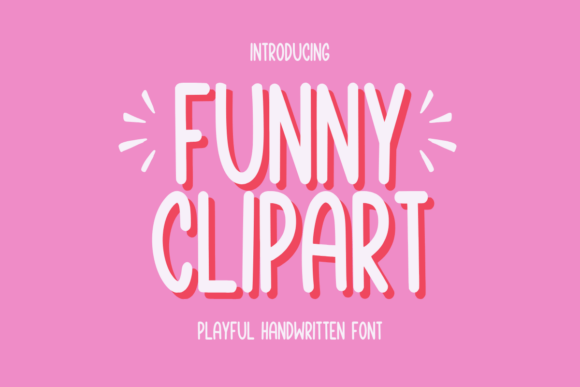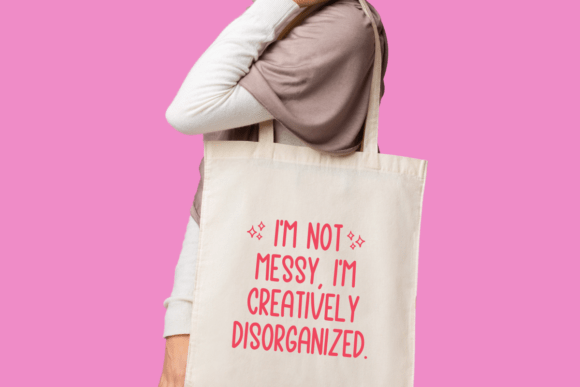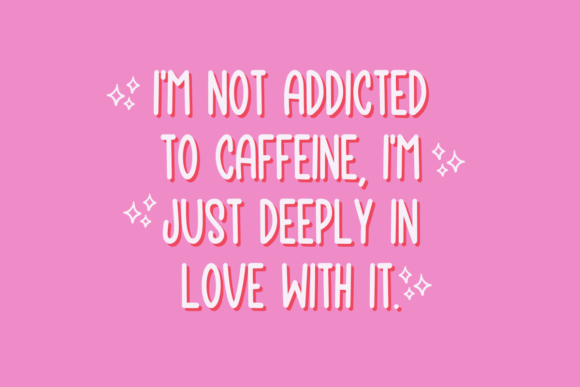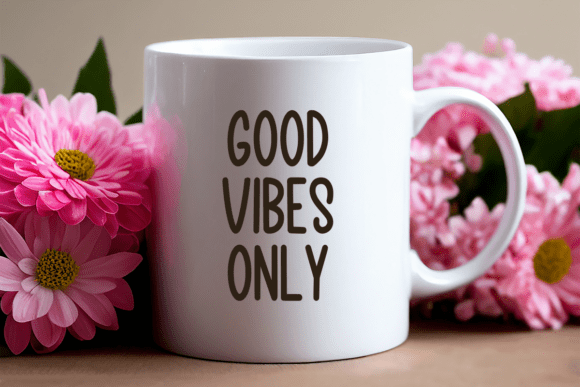
Funny Clipart Font: A Playful Handwritten Font for Cricut & DIY!
About the Funny Clipart Font
Get ready to be inspired by Funny Clipart Font, a fresh and dynamic typeface for modern creators. Funny Clipart is a fun and playful handwritten font that’s perfect for crafts, planners, KDP, stickers, greeting cards, and more. With its cute and friendly style, it works great for Cricut, sublimation, and creative DIY projects. Ideal for crafters, designers, and makers!
Its playful, hand-drawn style shines in headlines, short captions, and playful branding projects for children’s products or craft businesses. Avoid using it for body text or lengthy paragraphs; its informal nature makes it less legible for extended reading. Pair it with a clean sans-serif like Montserrat for a balanced contrast, or a simple serif like Lora for a touch of classic elegance.
Funny Clipart’s core personality is undeniably cheerful and approachable. It’s ideal for projects needing a friendly, handmade feel, such as children’s book covers, invitations, or social media graphics. The font’s inherent charm is best suited for brands targeting a youthful or creative audience.
Consider pairing it with a playful script font like Pacifico for a more whimsical look or a geometric sans-serif like Futura for a modern contrast, depending on the desired effect. Avoid pairing with overly serious or formal fonts.
Funny Clipart Font Usage Examples
Funny Clipart Font Example